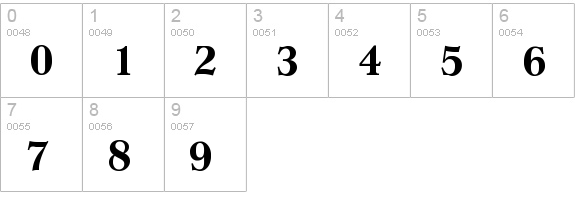
Cremona Bold Font Details
Cremona Bold is a strong, high-contrast variant in the Cremona typeface family \xE2\x80\x94 well suited to headlines, attention-grabbing titles, and strong calls-to-action.
Cremona Bold is a versatile and modern typeface that exudes confidence and elegance. With its bold strokes and clean lines, this font is perfect for making a statement in headings, titles, and logos. The strong and distinctive characters of Cremona Bold add a touch of sophistication to any design project. What makes Cremona Bold even more appealing is that it is available for free download at FontsMarket.com. This means that you can easily access this high-quality font without any cost, making it a valuable addition to your font collection. Whether you're working on branding, advertising, or editorial design, Cremona Bold is sure to make your text stand out and leave a lasting impression. Elevate your designs with the timeless elegance of Cremona Bold today!